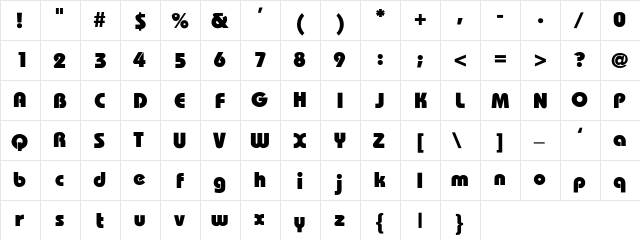
Bauhaus-Heavy-Bold Regular
Design Context for Bauhaus-Heavy-Bold Typeface
Bauhaus-Heavy-Bold is a composed and adaptable typeface that performs quietly and consistently across a wide range of design contexts. Its bold stroke weight gives it real presence on the page.